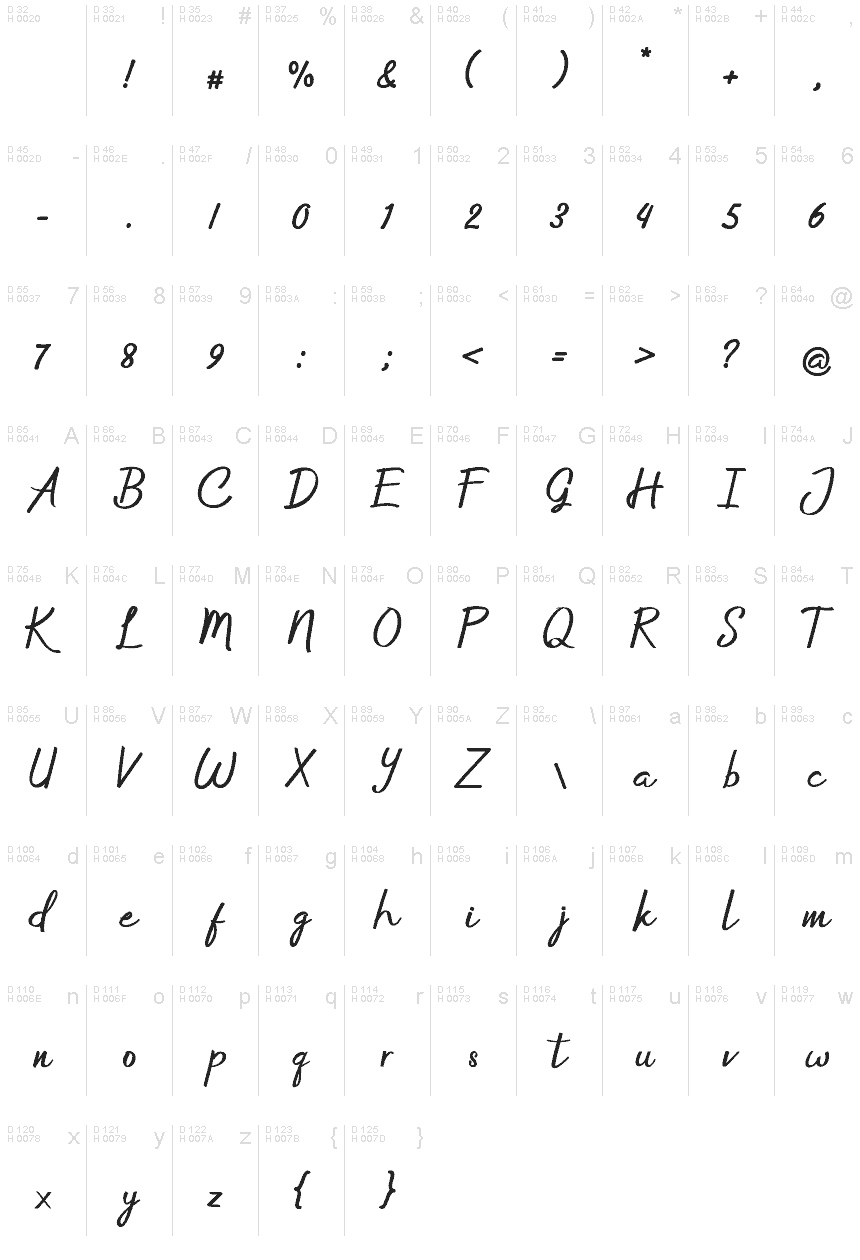
Jackson Amor
Jackson Amor font, designed by UI Creative, is a free handwritten font that combines elegance with a modern appeal. Its flowing and expressive style brings a personal touch to any project, making it perfect for contemporary uses.
This font is ideal for branding, product packaging, logotypes, invitations, business cards, posters, websites, and social media posts. It also works beautifully on T-Shirts and other apparel design.